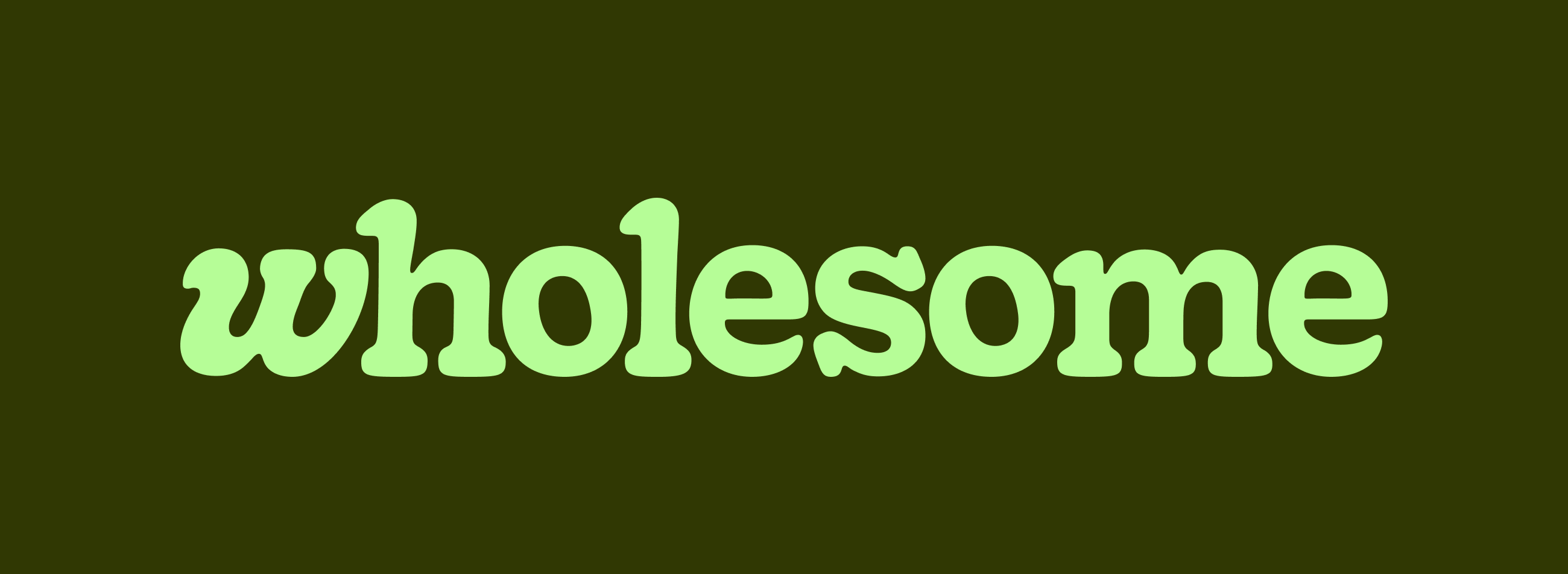
Australian online retailer unveils indicatively modernized identity
Launched in 2020, Wholesome is an Australian online retailer that offers a wide range of products, including foods and drinks, personal care, and household goods. The very name of the company means that the products here are offered at almost wholesome prices. Apart from this, Wholesome positions itself as an “eco-health brand”, betting on healthy nutrition, sustainable packaging, and responsible sourcing. Unveiling its new identity, recently created by the Sydney-based design studio Universal Favorite, the online store wants to demonstrate the innovative methods of its direct-to-customer offerings as well as the positive vibes from the variety of branded products it sells.
According to the studio, the company’s notion of “eco-health” was taken as a base to build a brand language that reflects Wholesome’s combination of health and sustainability. The visual system called The Wholesome Movement revolves around the idea of customers buying better, eco-friendly products to make this world better together. This idea is perceived across all the touchpoints of the Wholesome identity, including the store’s new logo.
The wordmark is designed in the Gooper serif typeface, which is an advanced version of the 1919 Cooper font with a goopy-inspired, cheerful vibe. To make the logo more distinctive, the design team slightly customized the initial “w” that seems to tuck under the ascender of the “h”. Besides, the letter can be used as a separate symbol, as Universal Favorite says.
The new design can surely elevate the image of Wholesome, especially if we compare it to the company’s old logo, which looked quite amateurish and was suited more for an ordinary grocery store than a modern online DTC retailer. The playful forms of the new typography are as practical as they are expressive. While Wholesome’s Goopy is intended to be used mainly for headlines, the brand’s typographical assets also include the sans Maison Neue, which will appear as an additional font fitted for body texts and pops. Furthermore, the type system is supplemented with Kale Sans Mono, resembling a typewriter type.
The brand’s color palette is naturally dominated by greenish shades, given the sustainable direction of Wholesome. While the logo is designed in Pale Light Green which is applied as the main brand color to the store’s website and other assets, Dark Olive is another noticeable color in the gamma. The identity is also supported by a nice range of secondary light hues.
Essentially, the new Wholesome identity, according to the project’s summary, is built on three cornerstones: curation, distillation, and organization. In this regard, curation is a figurative expression of grocery catalogs introducing products to customers. Distillation means Wholesome’s approach to product selection, which inspired the designers to use some visuals like presentational diagrams. And the organization element, which took an idea from shelves and pantries, is represented by a grid system and lines visualizing the working principles of the brand.